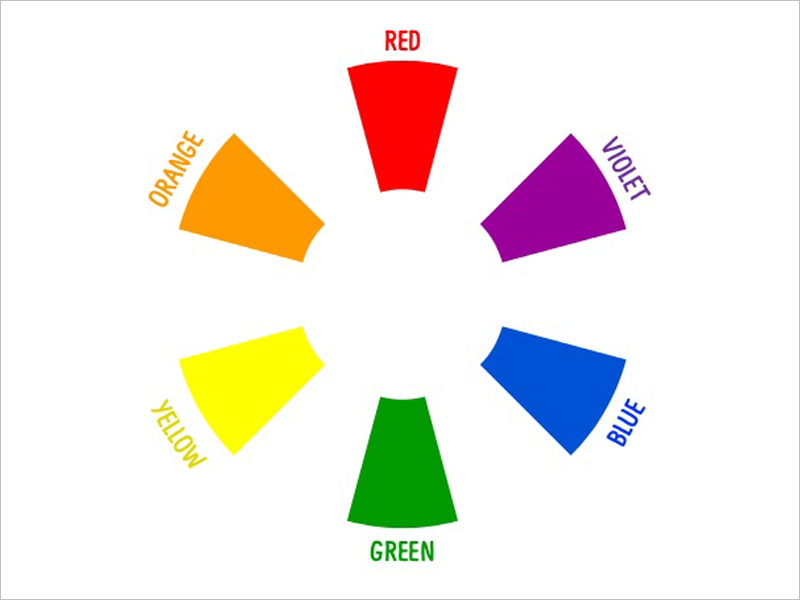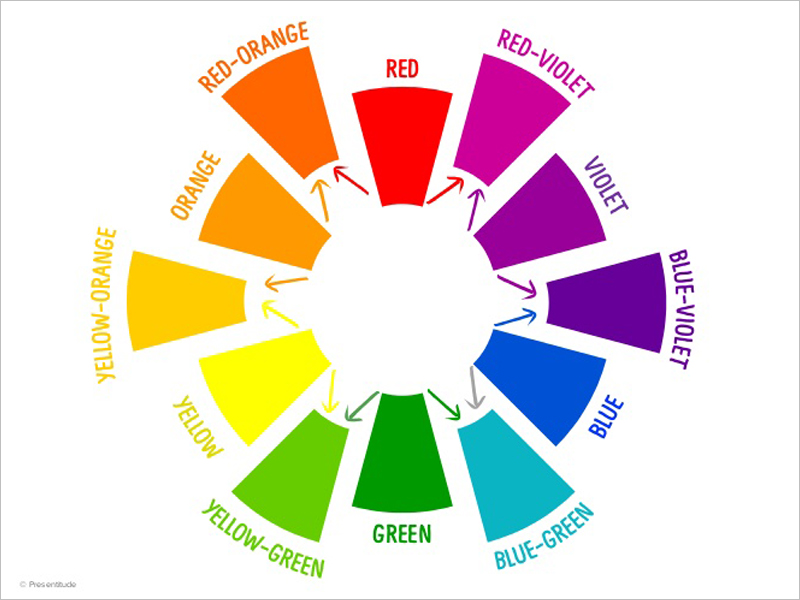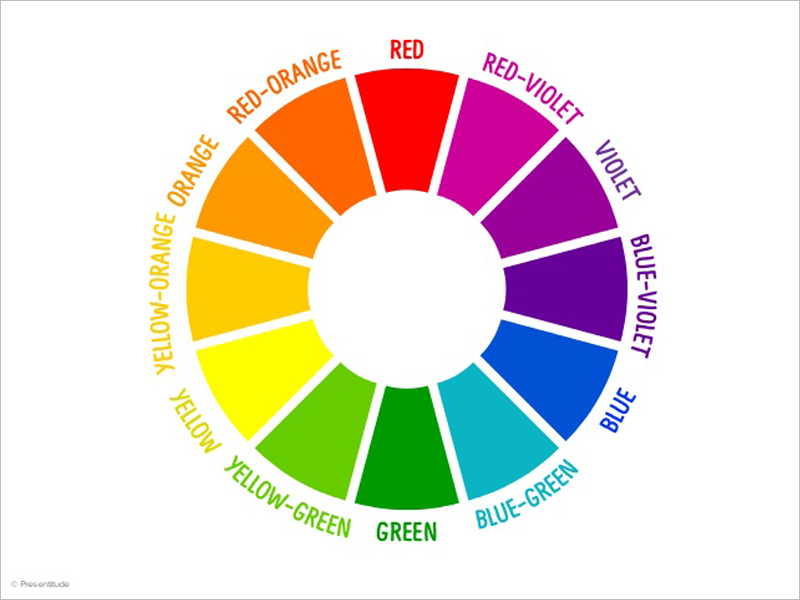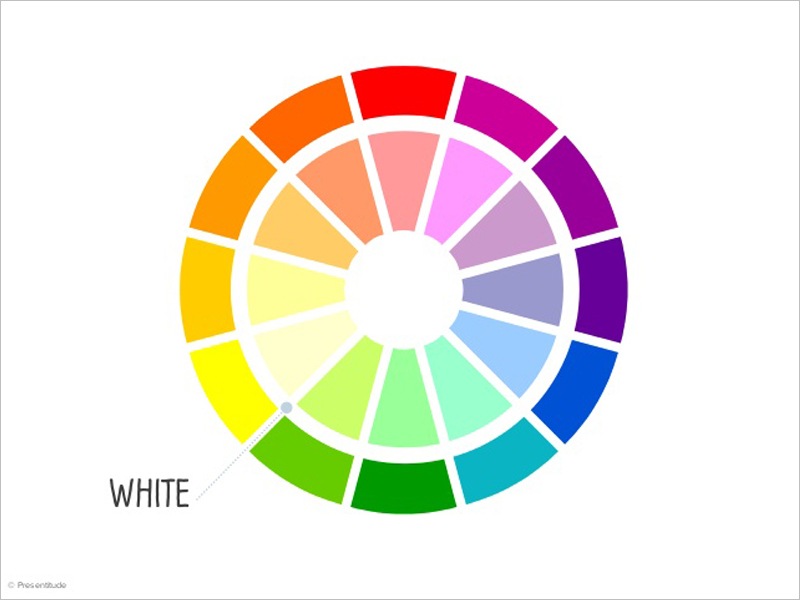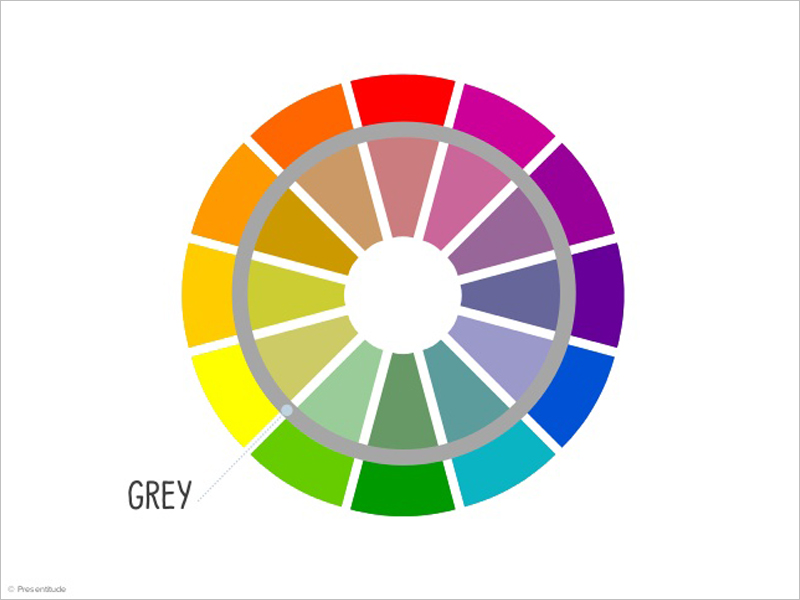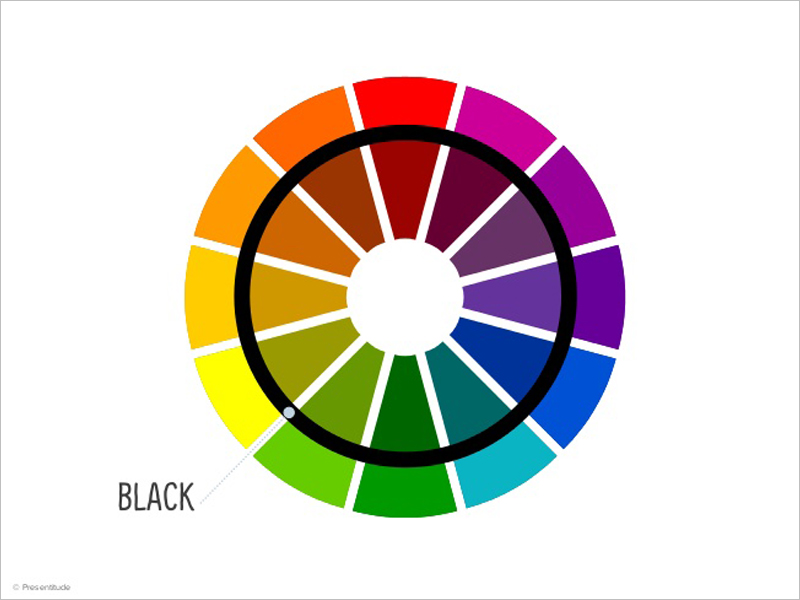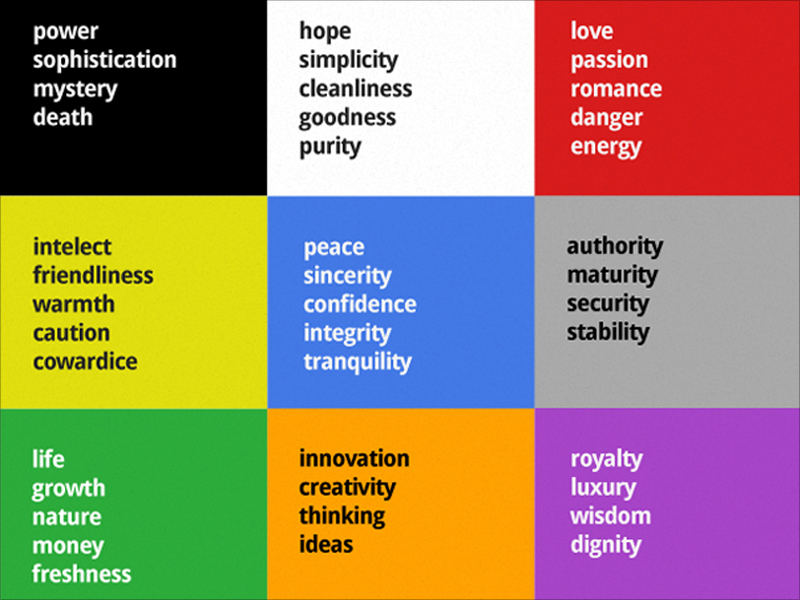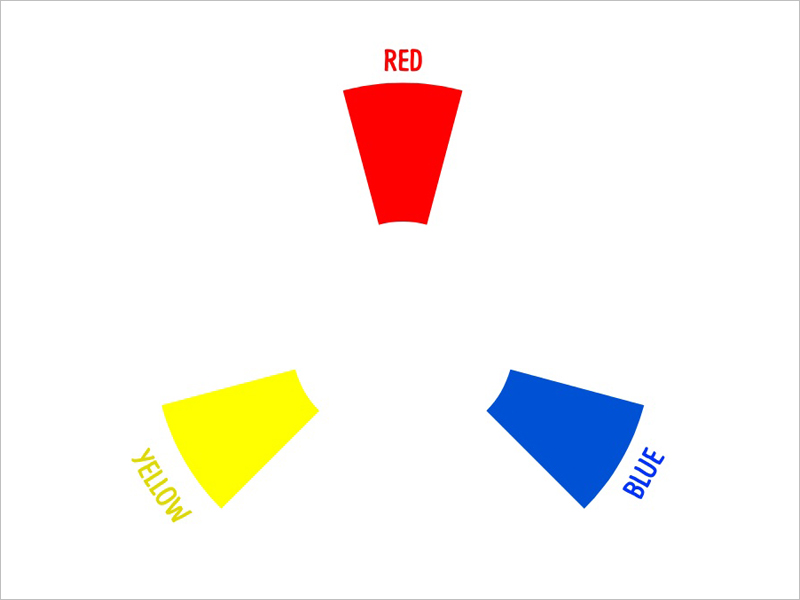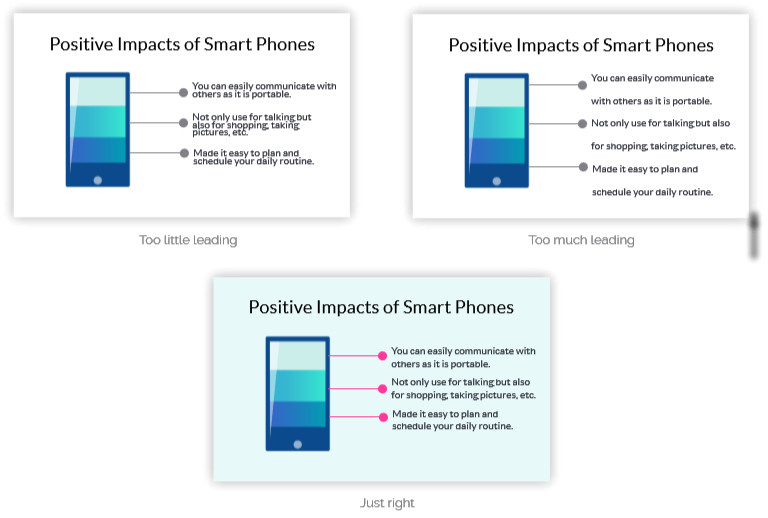
| Digital storytelling 2017-18
COLOURS
Ji Lee,Word as image
Rules :
1. coherence
2. links
3. list
pure colours
Tint > COLOURS + white
tone > Colour +grey
shade >> colour + black
Cool Colors
On the opposite side are the cool colors: the greens, blues and violetsWarm Colors
For example, the warm colors on the wheel are the reds, oranges and yellows:
60-30-10
This means that if you’ve chosen three colors, as recommended above, then you should devote 60 percent of the space on your slides to the primary color, 30 percent to the secondary and 10 percent to the accent color..
FONTS
Coherence
-- uppercase letters for short titles and not complete sentences --
-- Small caps --
STYLES: serifs, without serifs, scripts and decorative styles >> it. bastone e grazie
- Serif Type Styles
Old Style
Transitional
Neoclassical & Didone
Slab
Clarendon
GlyphicGrotesque
Square
Humanistic
Geometric
- Script Type Styles
Formal
Casual
Calligraphic
Blackletter & Lombardic
- Decorative
Grunge
Psychedelic
Graffiti